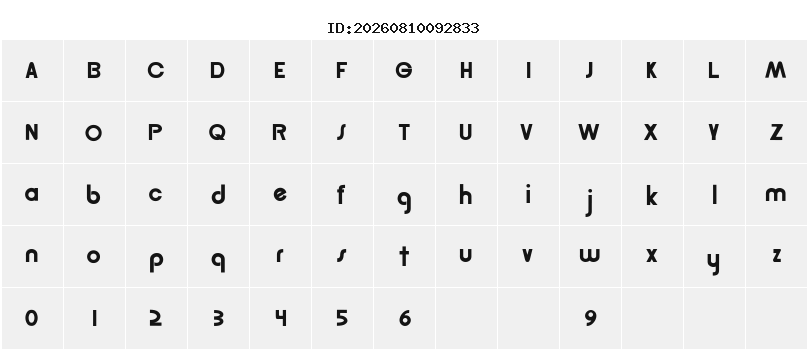
About PCGolden.ttf
PCGolden.ttf is a modern, elegant sans-serif font designed for ultimate readability and visual harmony. Perfect for branding, headlines, web design, and print materials.